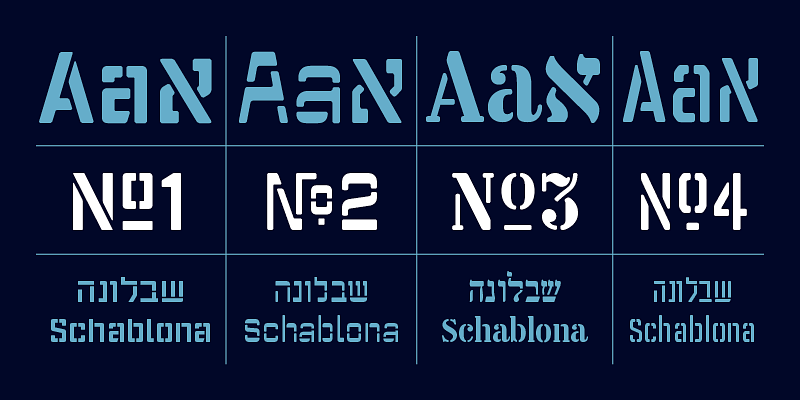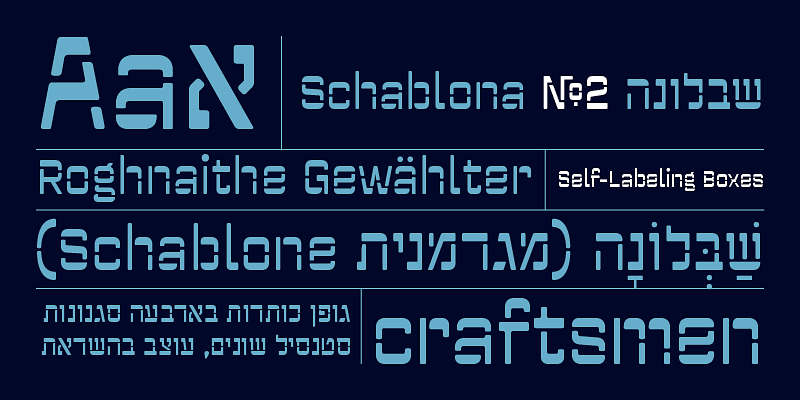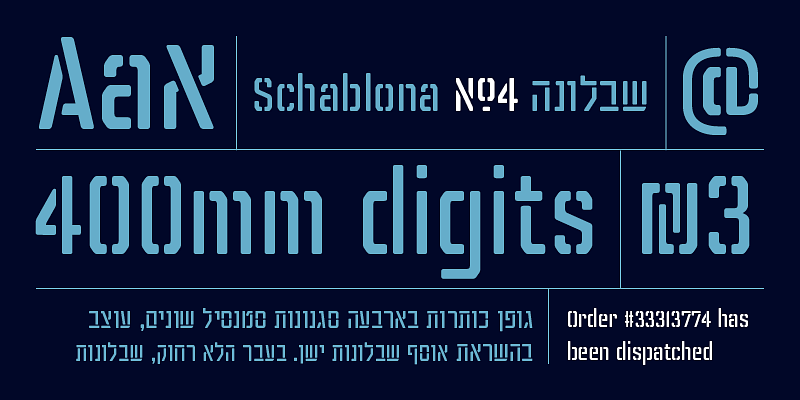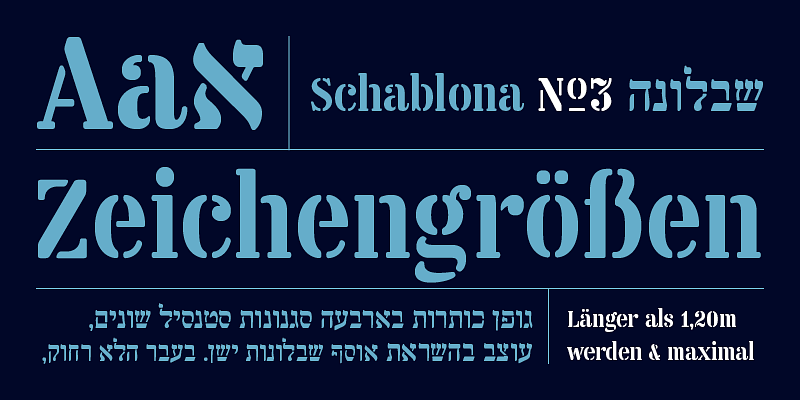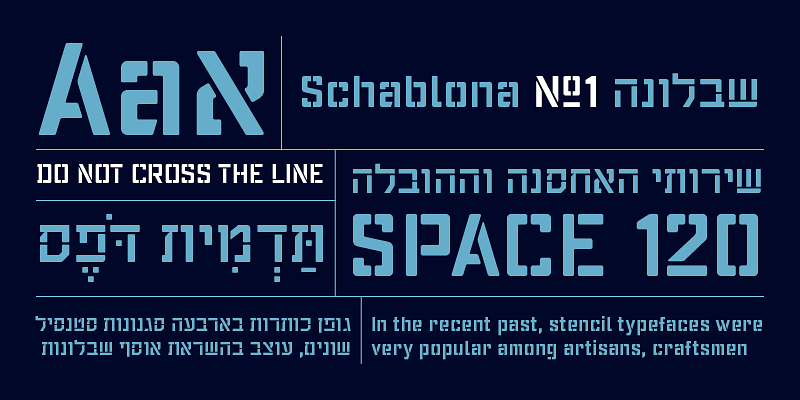
In the recent past, stencil typefaces were very popular among artisans, craftsmen and militaries. Schablona is a stencil type family inspired by found type in the industrial parts of Tel Aviv.